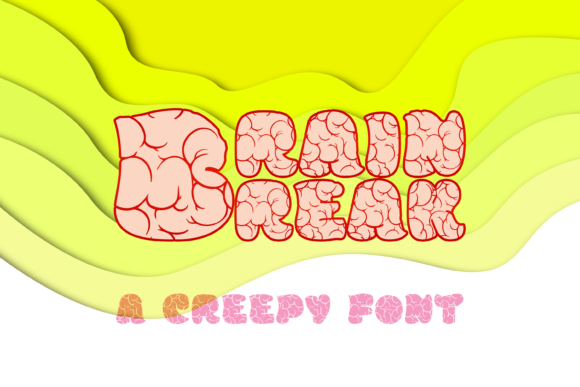
The Ultimate Brain Break Font Guide: Elevate Your Halloween Designs
I’ll never forget the year I was tasked with creating a Halloween-themed design for a client’s party invitation. As I scrolled through my font library, I just couldn’t find the perfect fit. That was until I stumbled upon the Brain Break font. Its unique blend of spooky and stylish elements instantly captured the essence of the holiday, and my design was saved! In this article, I’ll share my experience with the Brain Break font, its features, and how to make the most of it in your designs.
An Honest Review of Brain Break Font
The Brain Break font has quickly become a favorite in my design arsenal, and for good reason. Here are some of the things I love:
• ✨ Unique and eye-catching design that’s perfect for Halloween-themed projects
• ✅ Highly versatile and can be used for a variety of design applications, from invitations to social media graphics
• ⚡️ Easy to read and understand, even in smaller font sizes
While the Brain Break font is incredibly useful, it’s not without its quirks. Here are a few things to keep in mind:
• 🤔 Some users may find the font a bit limited in terms of its use outside of Halloween-themed projects
• ⚠️ The font’s unique design may not be suitable for more formal or professional design applications
The Backstory Behind Brain Break Font
The Brain Break font was designed by a team of creatives who wanted to create a unique and eye-catching font perfect for Halloween-themed projects. Inspired by classic horror movies and spooky decorations, the font’s designers aimed to create a font that would add a touch of eeriness and whimsy to any design.
Font Name Brain Break Font
Author WADLEN
What is the Brain Break font best used for? The Brain Break font is best used for Halloween-themed projects, such as invitations, social media graphics, and party decorations.
Is the Brain Break font easy to read? Yes, the Brain Break font is designed to be easy to read and understand, even in smaller font sizes.